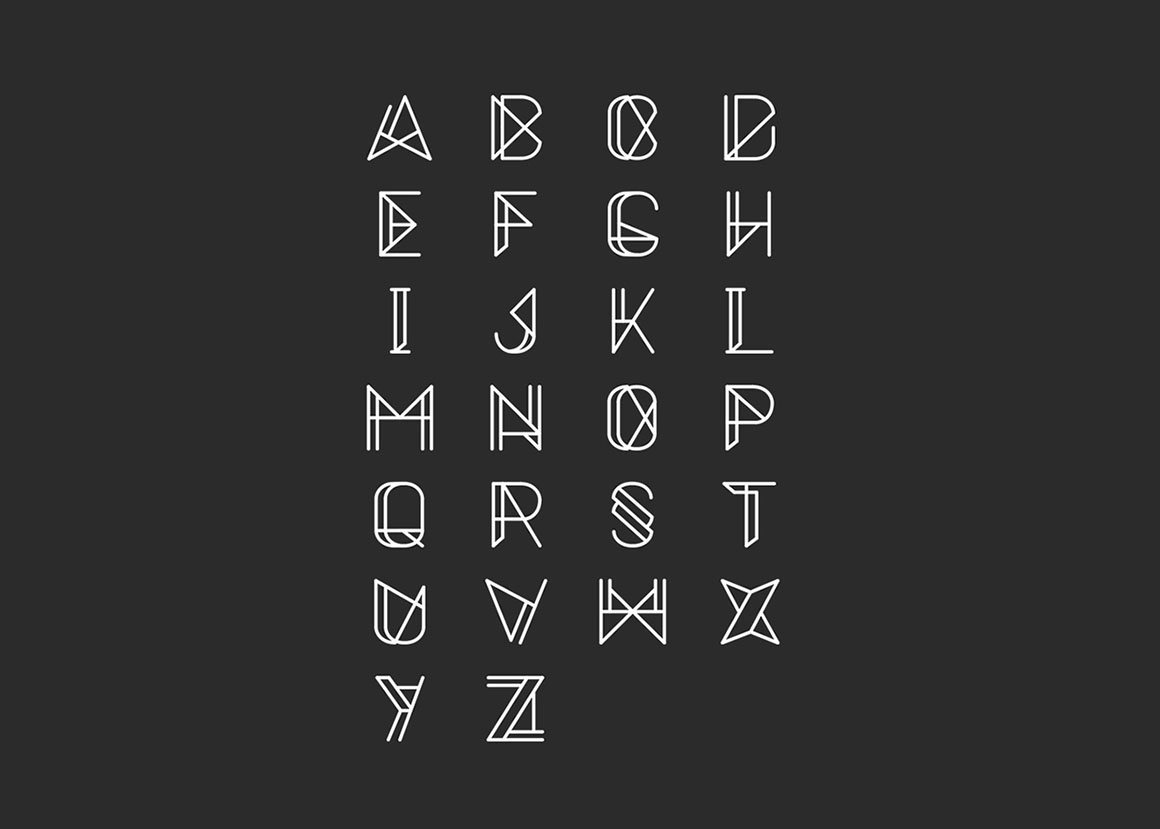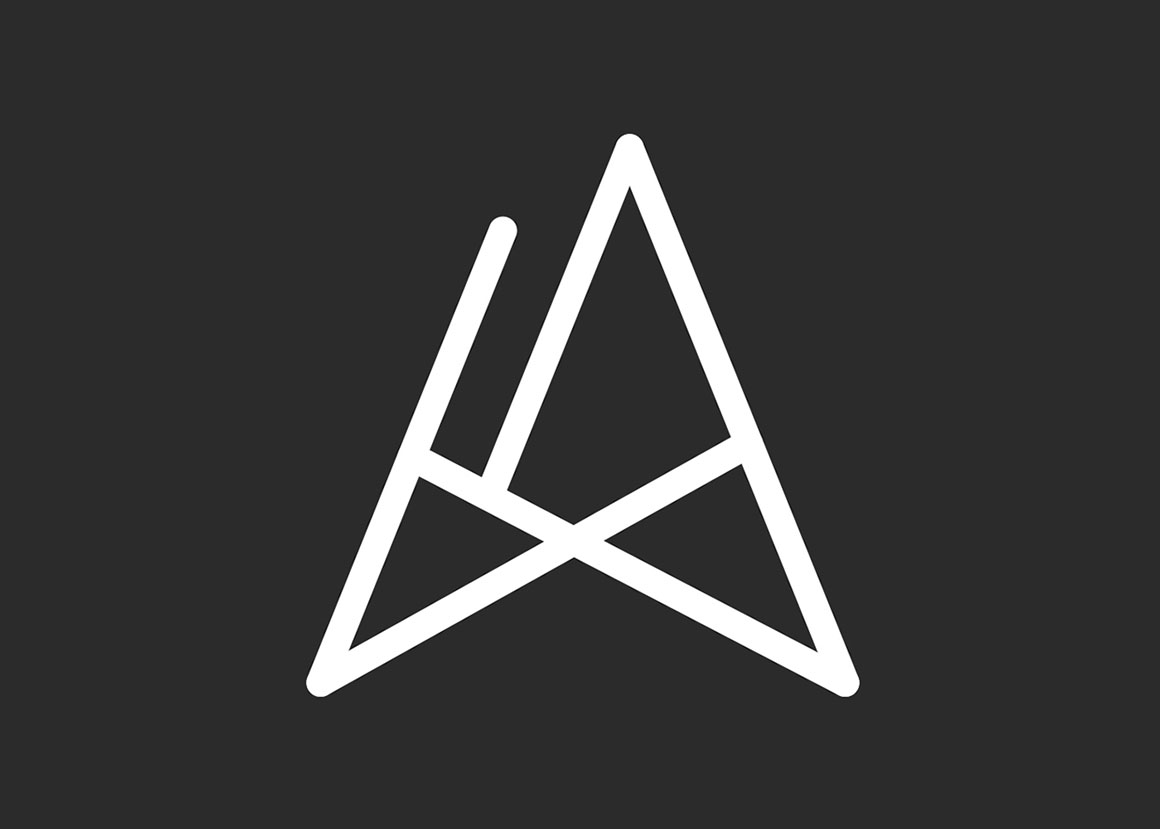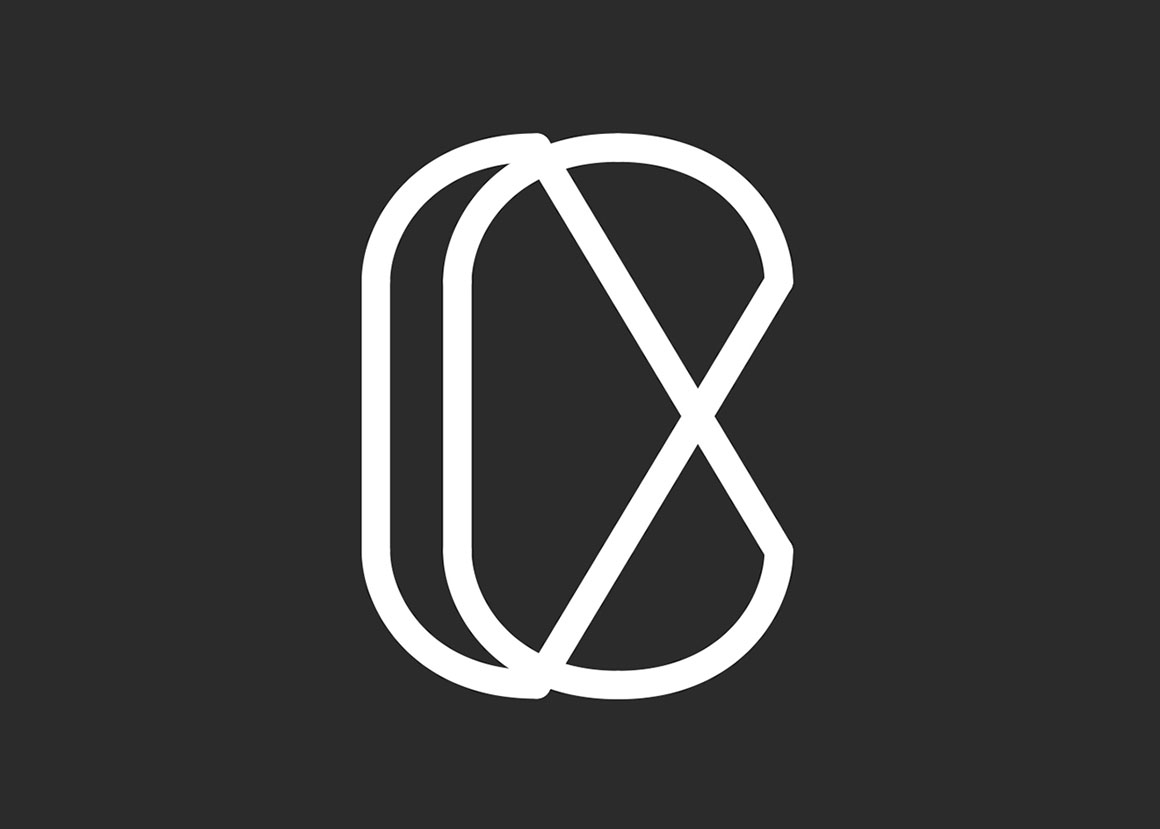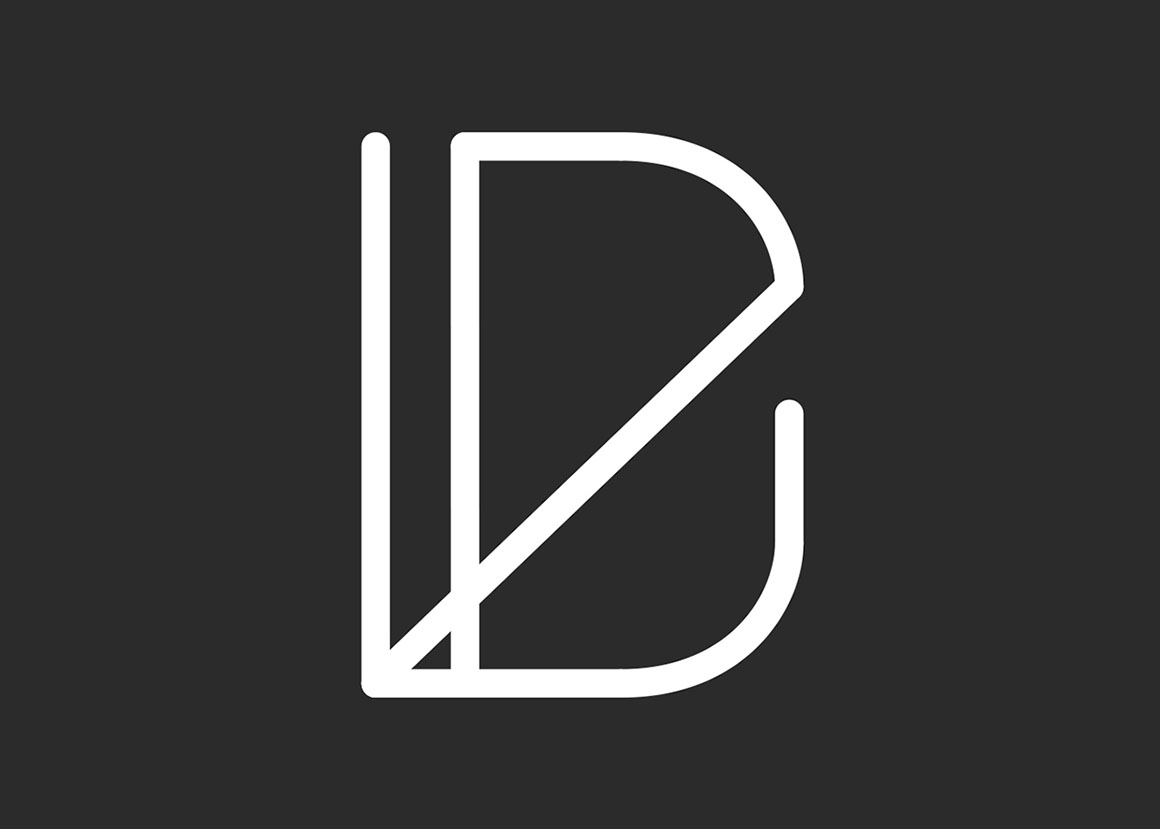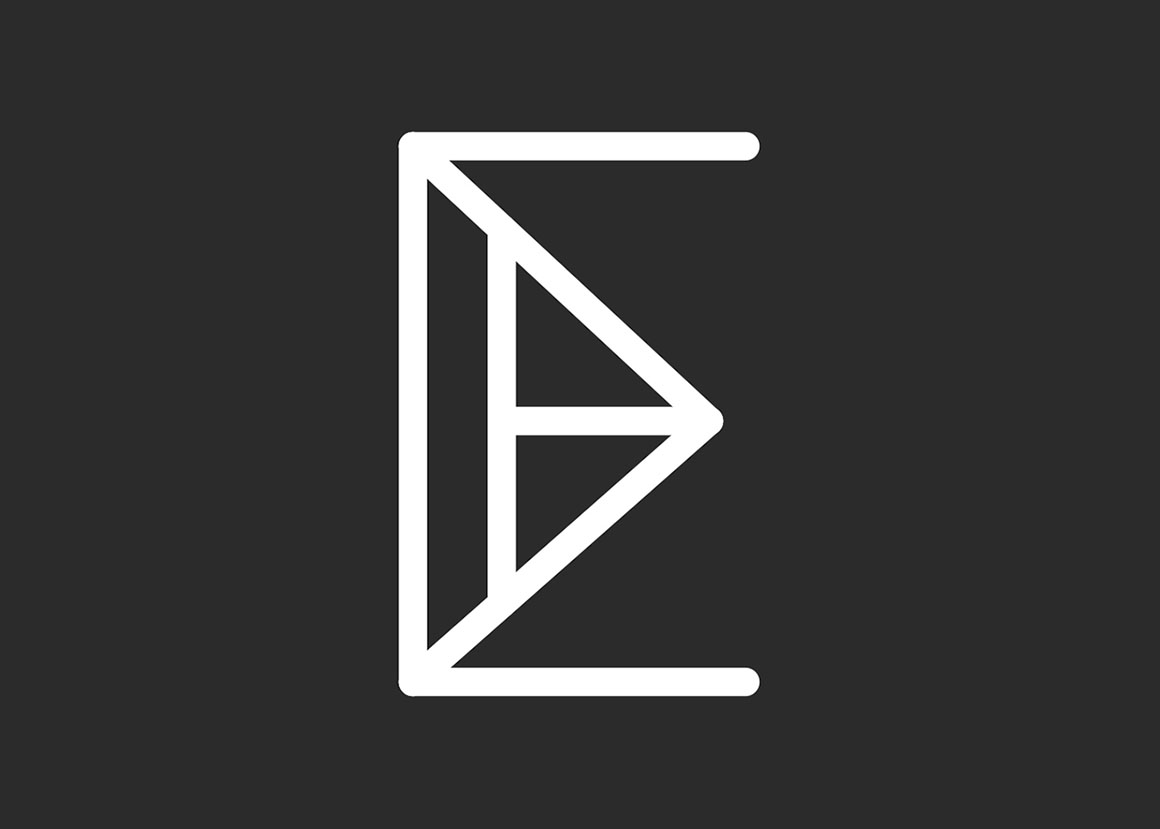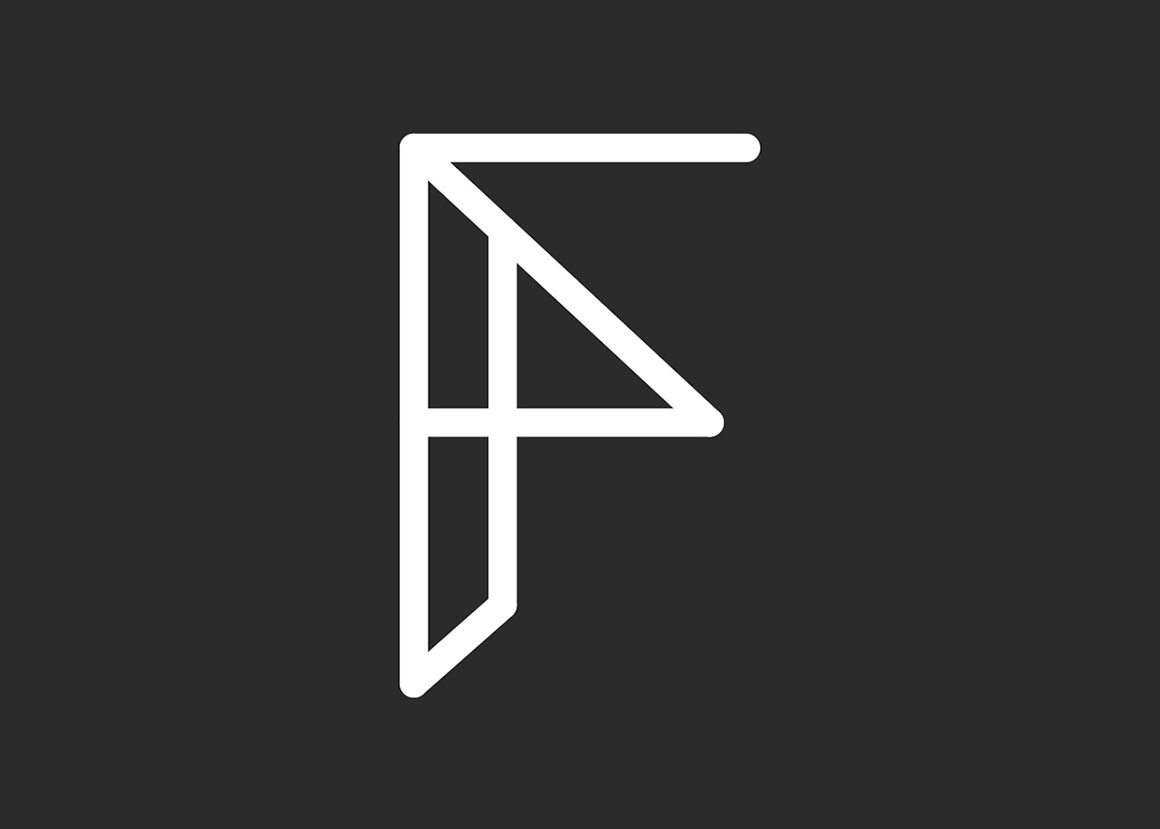
Metrica – Free Futuristic Font
This unique custom font is from Oliver James. Modern font with futuristic style. Great for your new projects. Download and enjoy 😉